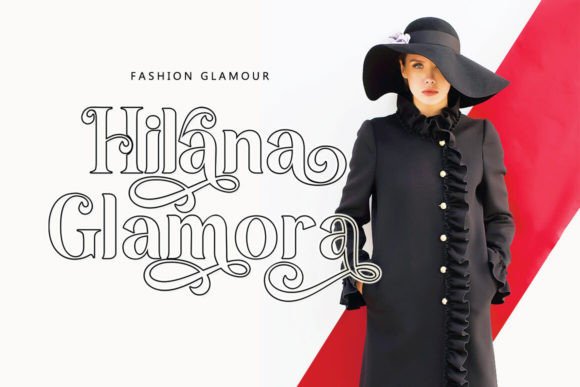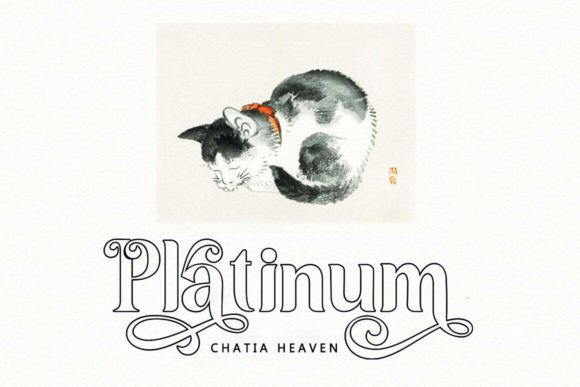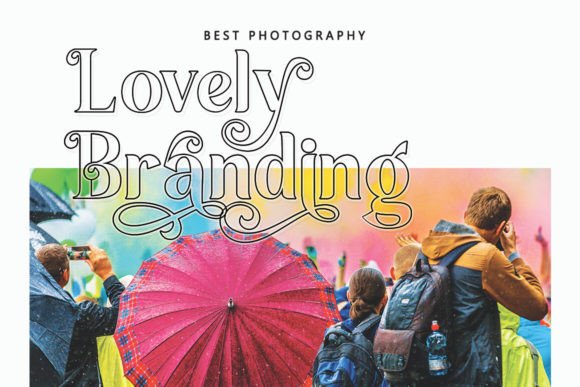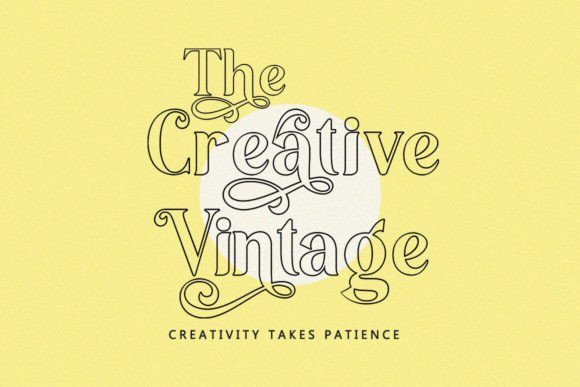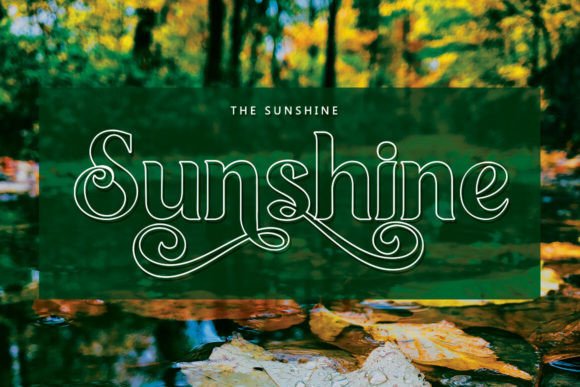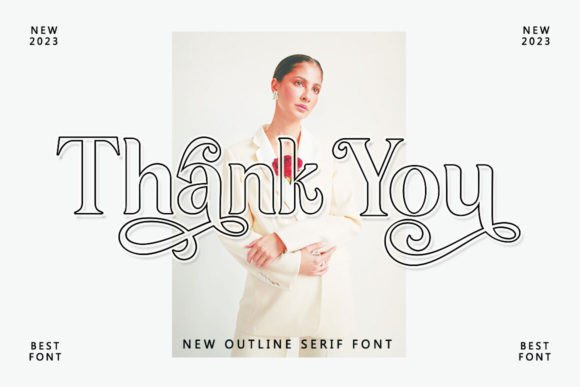
Discover the Elegance of Hailey Santia Font: A Versatile Serif Font for Modern Designs
Are you a designer or crafter looking for a font that exudes luxury, modernity, and friendliness? Look no further than the Hailey Santia Font. This beautiful serif font is characterized by its unique blend of luxurious and cheerful styles, making it perfect for a wide range of design projects. In this article, we’ll explore the features and benefits of Hailey Santia Outline, and how it can elevate your designs to the next level.
What is Hailey Santia Font?
Hailey Santia Font is a serif font that boasts a modern and luxurious style, while also conveying a friendly and cheerful tone in bold. Its unique design makes it an excellent choice for designers and crafters who want to add a touch of elegance and sophistication to their work. The font features glyphs that provide crafters with more options for designing, allowing for greater creativity and flexibility.
Key Features of Hailey Santia Outline
- Serif Style: Hailey Santia Outline features a classic serif style that adds a touch of sophistication to any design.
- Luxurious and Modern: The font’s luxurious and modern design makes it perfect for high-end branding, logos, and designs that require a sophisticated look.
- Glyphs: The font includes glyphs that provide more options for designing, allowing crafters to experiment with different styles and effects.
- Versatile: Hailey Santia Outline is suitable for a wide range of design projects, including logos, branding, magazines, signage, fashion, and more.
Uses of Hailey Santia Font
Hailey Santia Outline is a versatile font that can be used for various design projects, including:
- Modern Designs: The font’s modern style makes it perfect for contemporary designs that require a sleek and sophisticated look.
- Retro Vintage Designs: Hailey Santia Outline can also be used for retro vintage designs, adding a touch of elegance and sophistication to classic styles.
- Branding and Logos: The font’s luxurious and modern design makes it an excellent choice for branding and logos that require a high-end look.
- Crafts and Stickers: Hailey Santia Outline is perfect for crafters who want to add a touch of elegance to their designs, including stickers, sublimation, and more.
- Wedding Invitations: The font’s sophisticated design makes it an excellent choice for wedding invitations and other formal events.
Benefits of Using Hailey Santia Font
Using Hailey Santia Outline in your designs offers several benefits, including:
- Unique and Edgy: The font’s modern style gives designs a unique and edgy look that sets them apart from others.
- Elegant and Sophisticated: Hailey Santia Outline adds a touch of elegance and sophistication to designs, making them perfect for high-end branding and luxury products.
- Versatile: The font’s versatility makes it suitable for a wide range of design projects, from modern designs to retro vintage styles.
- Easy to Read: The font’s clear and legible design makes it easy to read, even in small sizes.
Hailey Santia Outline is a beautiful and versatile serif font that offers a unique blend of luxurious and cheerful styles. Its modern design, glyphs, and versatility make it perfect for a wide range of design projects, from branding and logos to crafts and wedding invitations. Whether you’re a designer or crafter, Hailey Santia Font is an excellent choice for adding a touch of elegance and sophistication to your work.